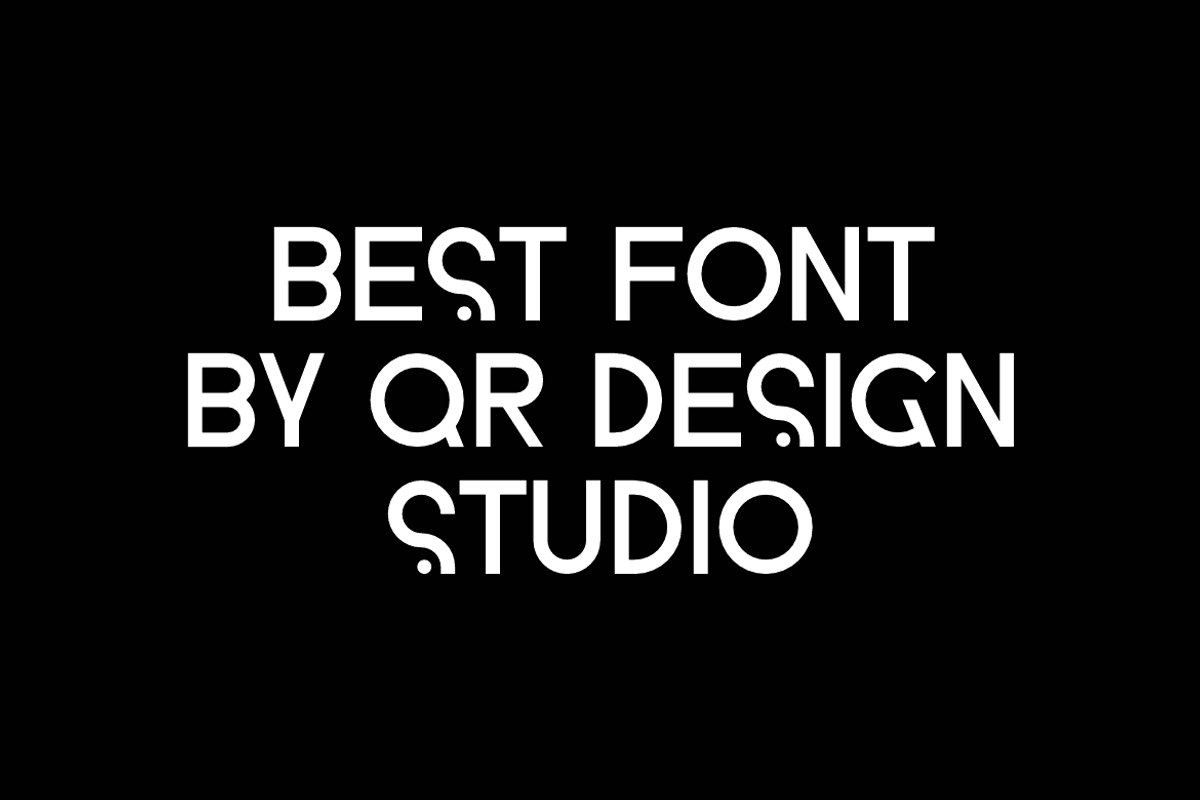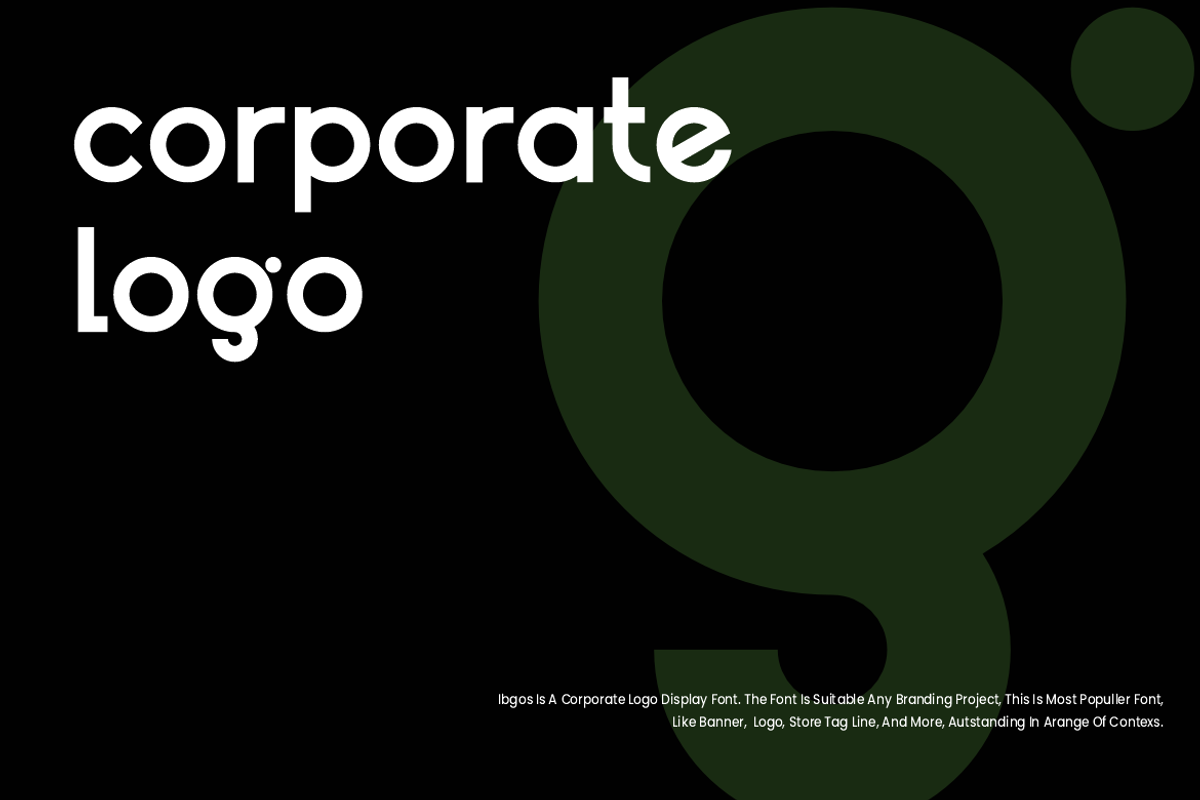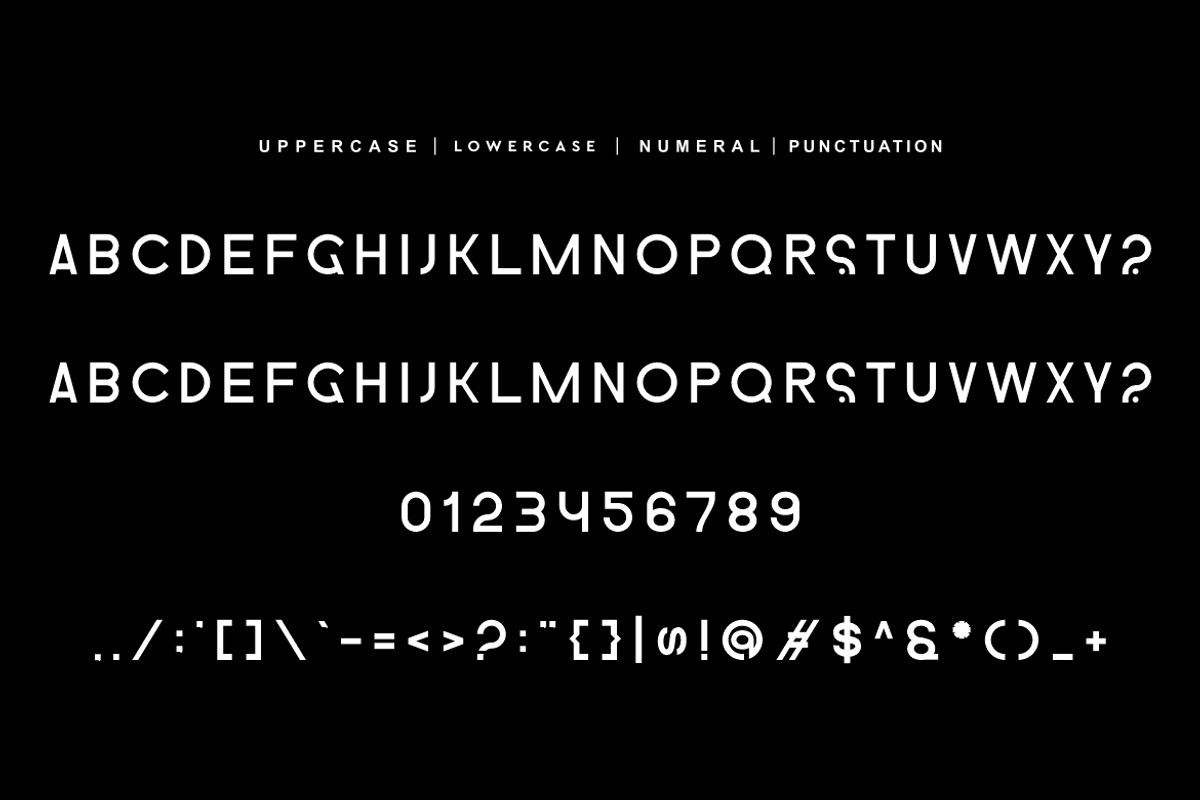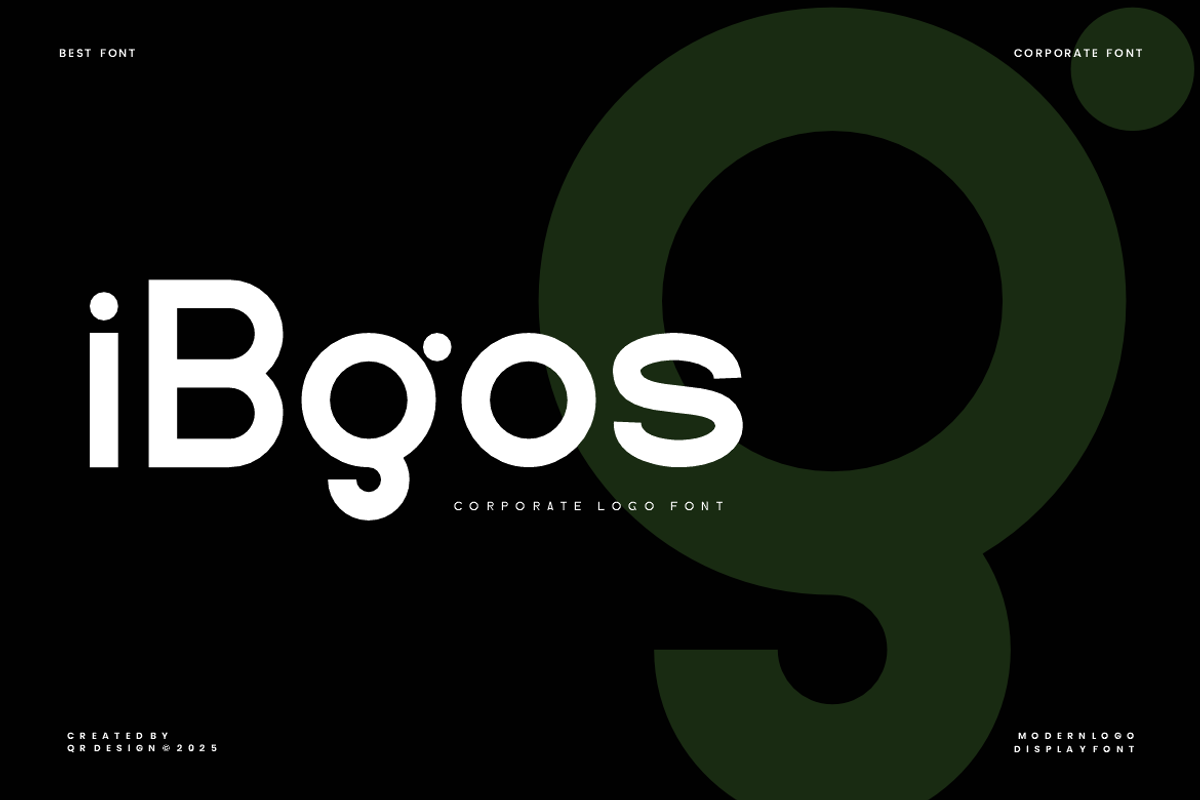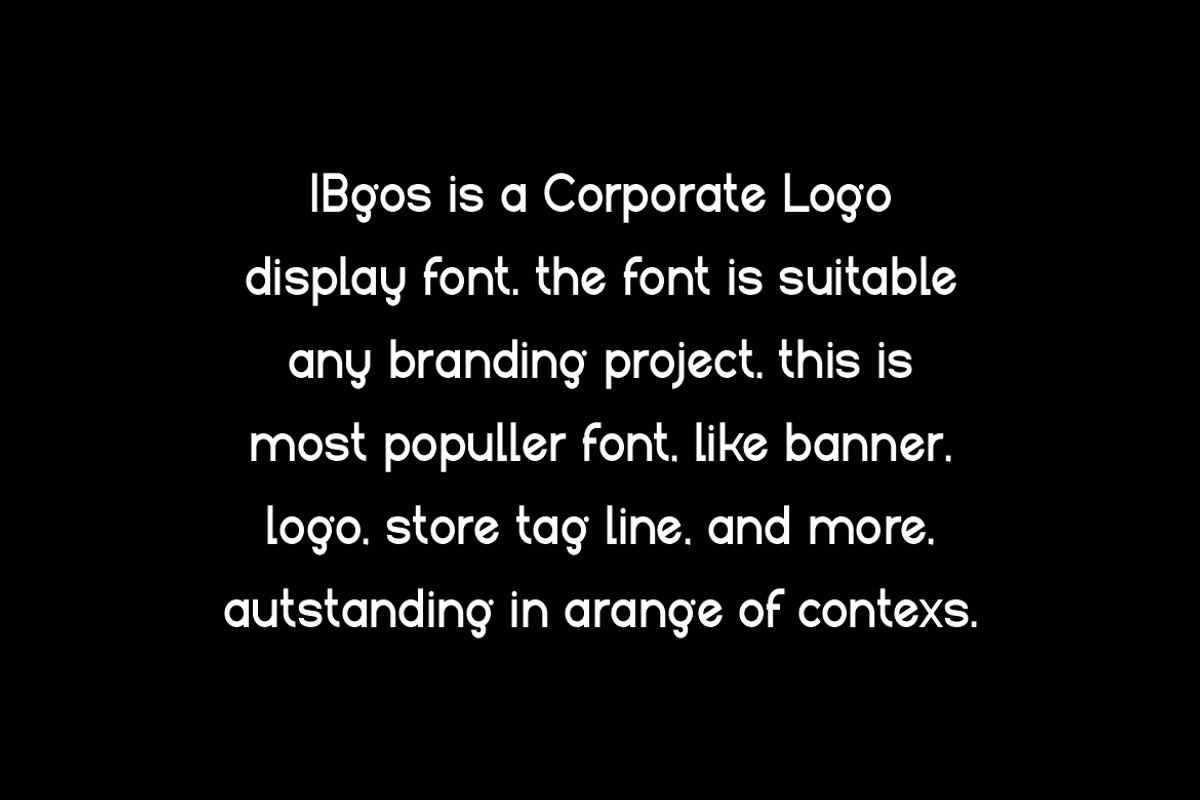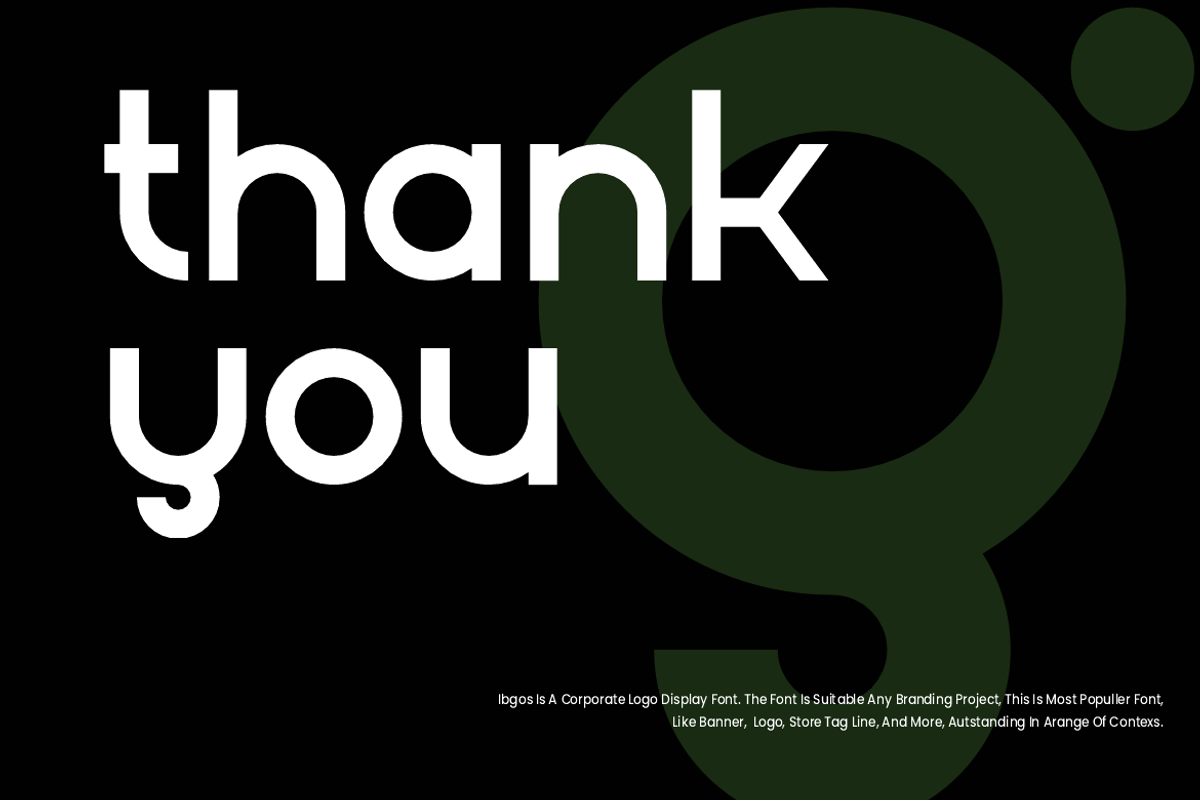
Ibgos - Corporate Logo Font
Ibgos Font is a sans serif and authentic display font. The font is suitable for any branding project like poster, logo, corporate, and many more. Outstanding in a wide range of contexts.